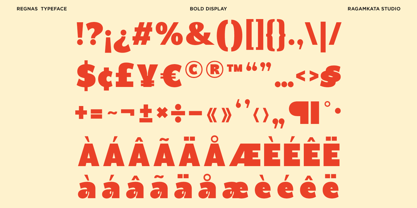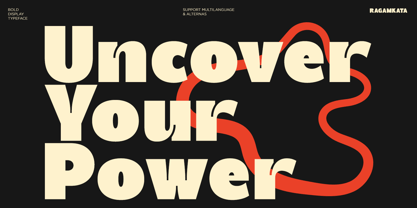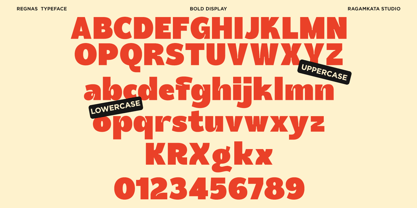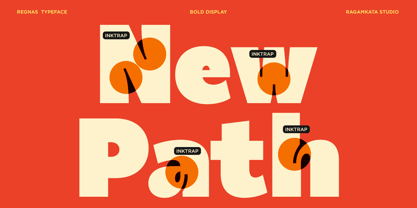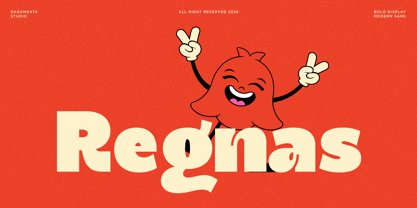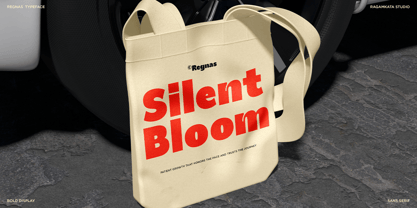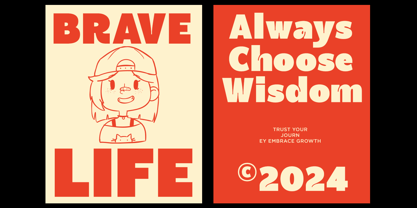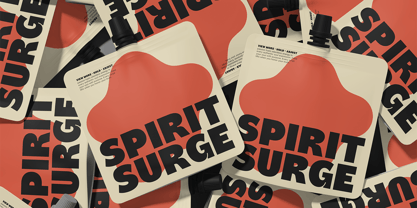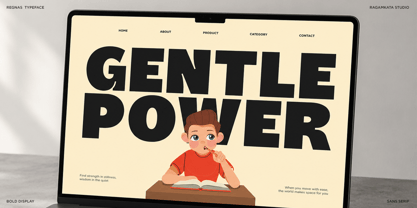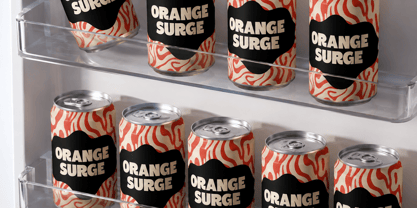
Regnas
La familia tipográfica Regnas fue diseñada por Yogiswhara Dio Prakoso Riadi y publicada por RagamKata. Regnas contiene 2 estilos y opciones de paquete familiar. Más información sobre esta familia
Regnas is a bold retro display font designed to bring energy, confidence, and nostalgic charm into every project. Featuring chunky letterforms, soft rounded corners, and a playful vintage aesthetic, it instantly captures attention while maintaining excellent readability across headlines, logos, posters, and branding.
Inspired by classic 70s and modern retro graphics, Regnas works beautifully for packaging, editorial layouts, social media, merchandise, food branding, café identities, children's products, music covers, advertising campaigns, and creative marketing materials. Its bold personality makes every design memorable while adding warmth and character.
Whether you're building a standout brand identity, creating eye-catching packaging, or designing expressive typography for print and digital media, Regnas delivers a timeless retro feel with a fresh contemporary twist.
• Regular and Italic
• Uppercase and Lowercase
• Number, Symbol, and Punctuation
• Multi Language Support